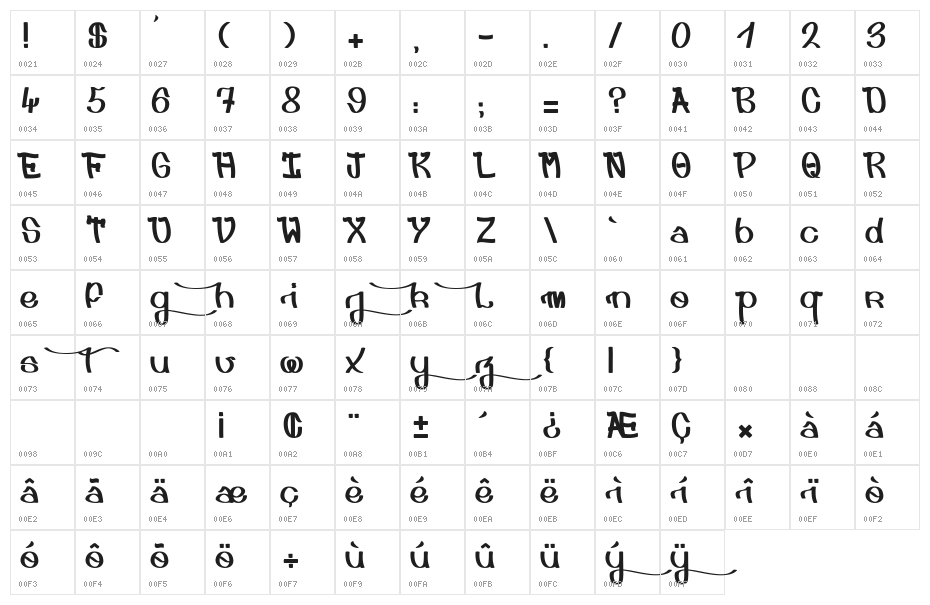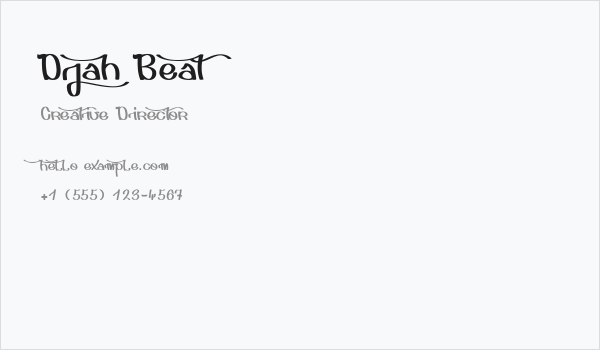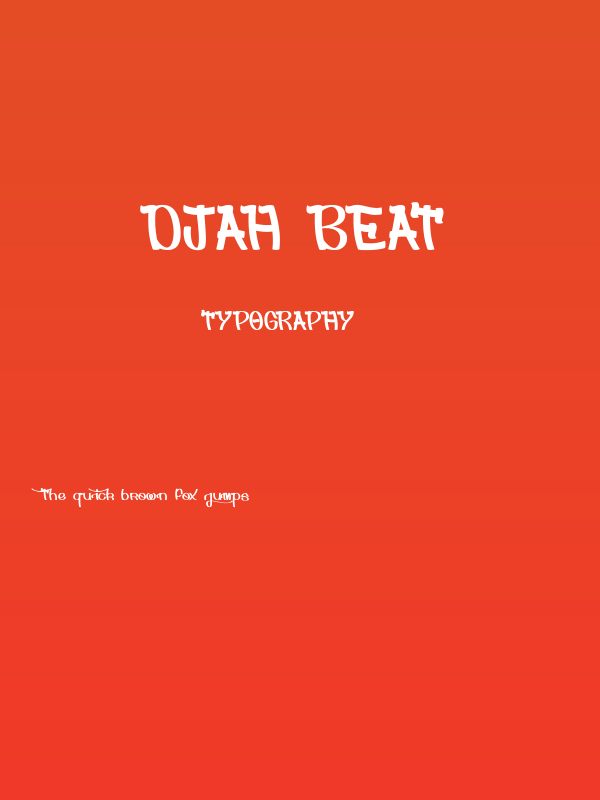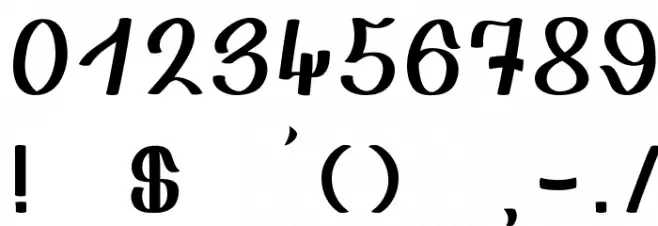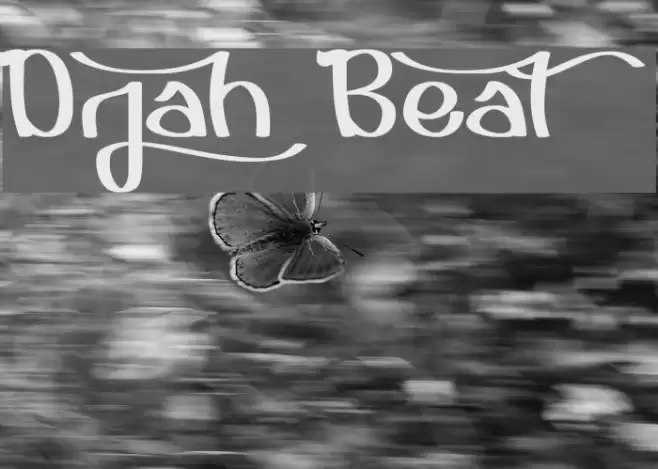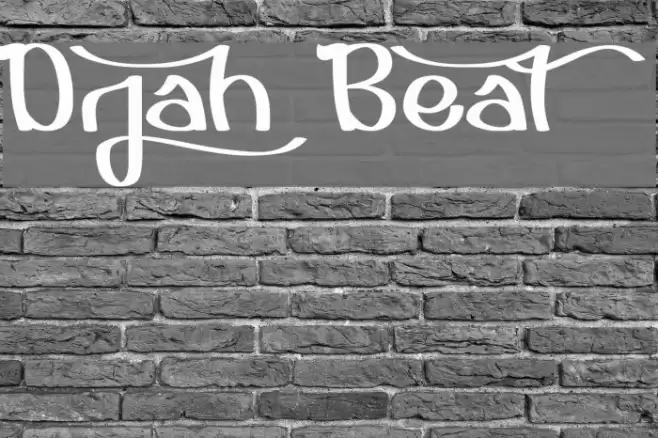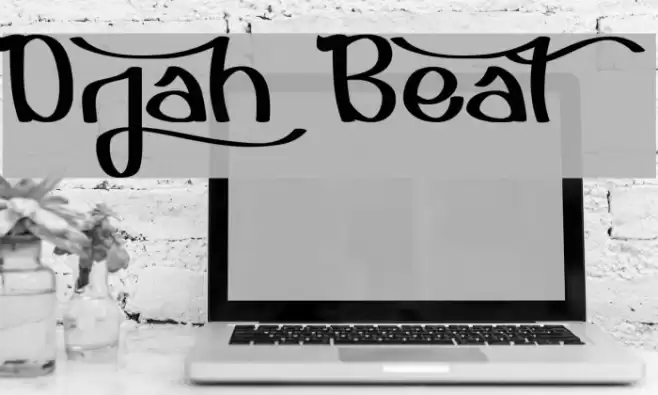
Djah Beat Font
Djah Beat Description
This font features a bold and artistic style with a unique blend of decorative elements. The uppercase letters are characterized by their strong, angular forms and distinctive serifs, while the lowercase letters incorporate flowing, cursive-like strokes that add a whimsical touch. The numerals maintain the boldness of the uppercase letters, ensuring readability while still fitting into the overall artistic theme. Special characters are designed with flair, complementing the font's creative aesthetic. This font is ideal for projects that require a bold, artistic statement, such as posters, album covers, or branding materials.
| Proposed Projects | Ideal for posters, album covers, branding, and artistic projects. |